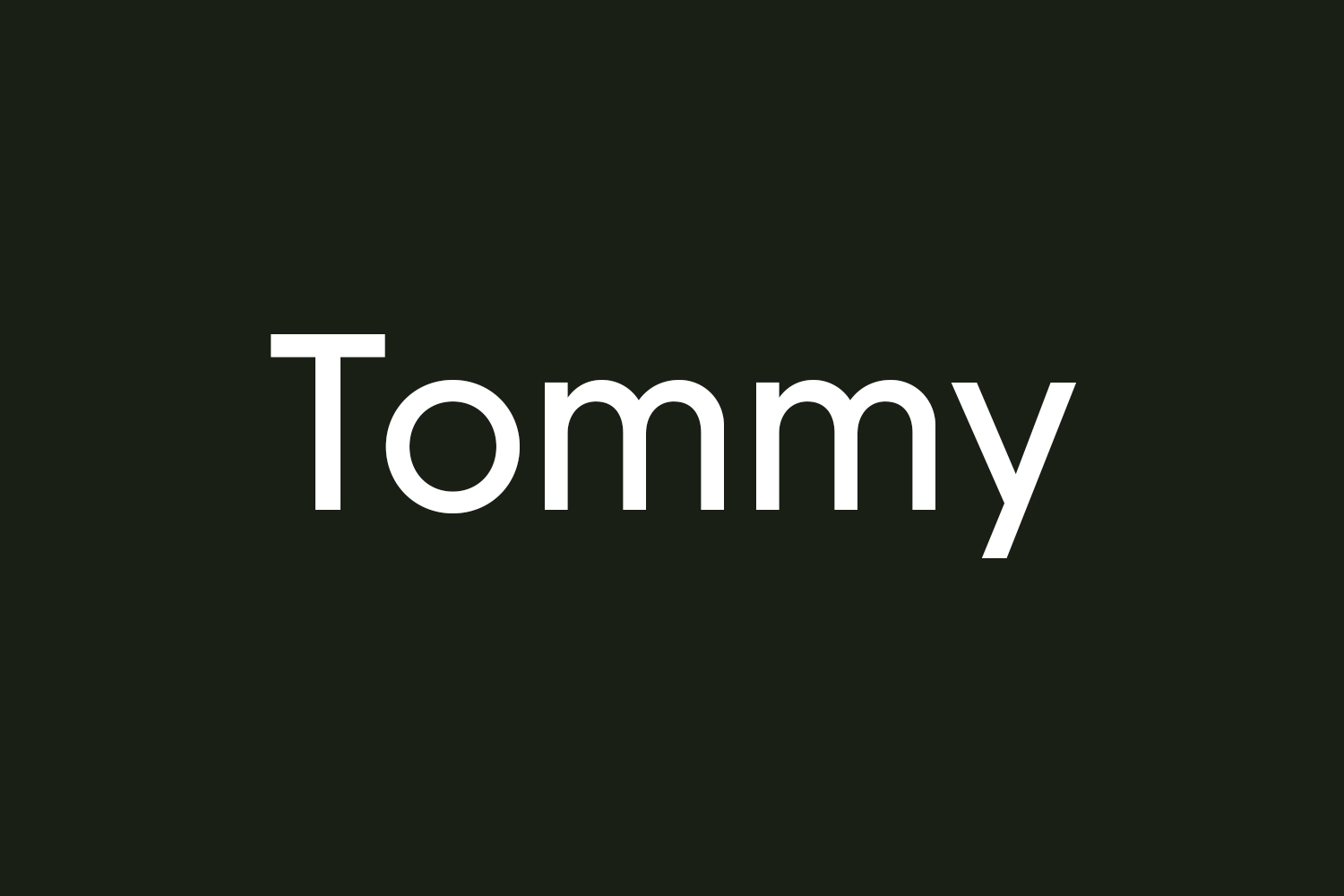
Tommy Free Font
Discover the versatility of Tommy Free Font Family, an innovative classic casual sans serif font family. With 7 normal and 7 outline styles, Tommy is ideal for a wide range of projects, including fashion, magazines, logos, branding, photography, invitations, weddings, quotes, blog headers, posters, advertisements, postcards, books, websites, and more. Elevate your creative endeavors with the timeless appeal of Tommy Font Family. Download the font for free if you need it for personal use or purchase the full version for commercial use.